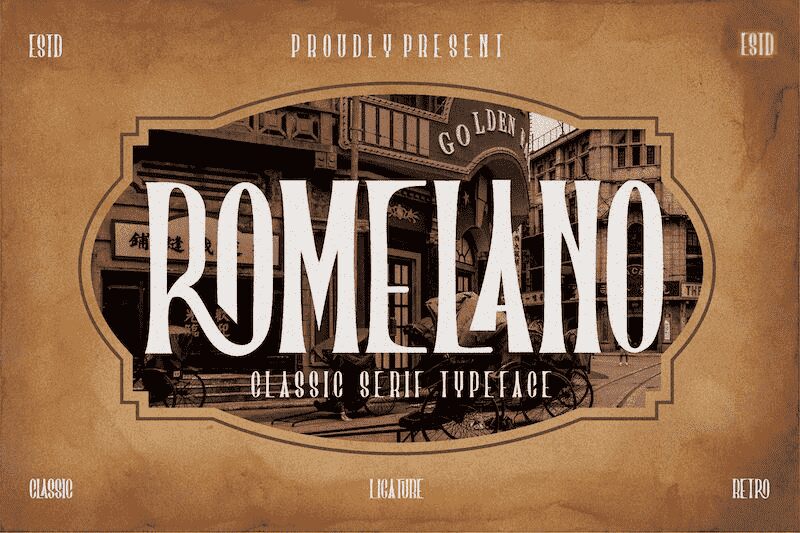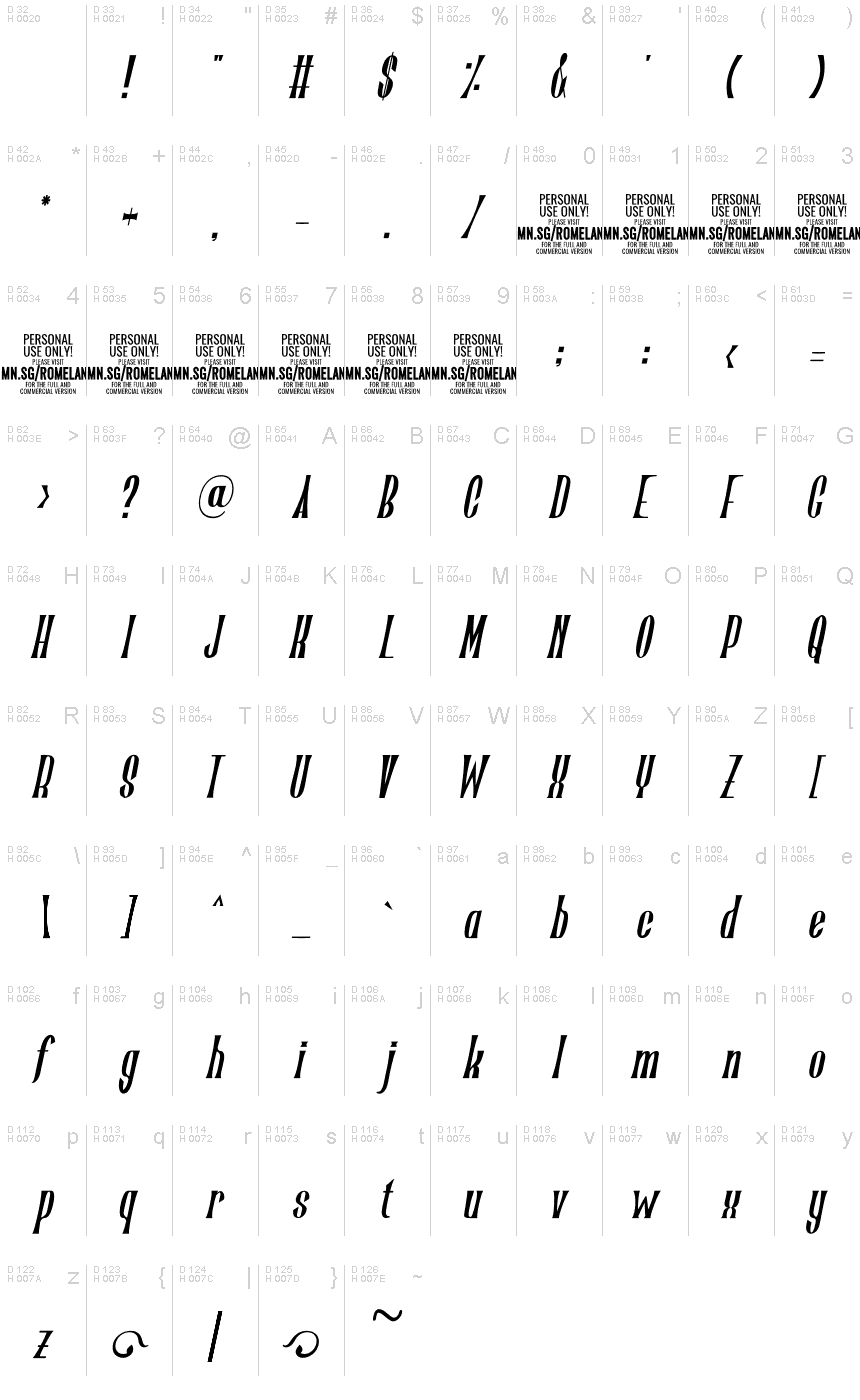
Romelano Italic PERSONAL USE Italic
Romelano Italic is a captivating display font from the Romelano font family, designed by the talented Mans Greback. With its retro-inspired style and semi-light weight, this font exudes an air of sophistication and elegance. The ultra-condensed width adds a touch of uniqueness to any design project. Perfect for posters, logos, and branding materials, Romelano Italic lends itself well to vintage-inspired projects, giving them a nostalgic charm. Whether you're designing for a hipster coffee shop or a fashion-forward boutique, this font will elevate your designs and make them stand out from the crowd.
Use characters { } to make decorative elements.
Example: {Beautiful}